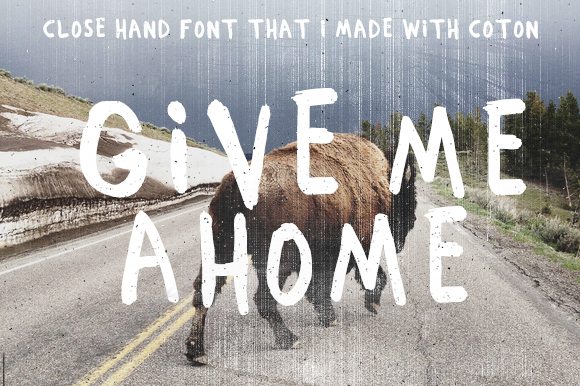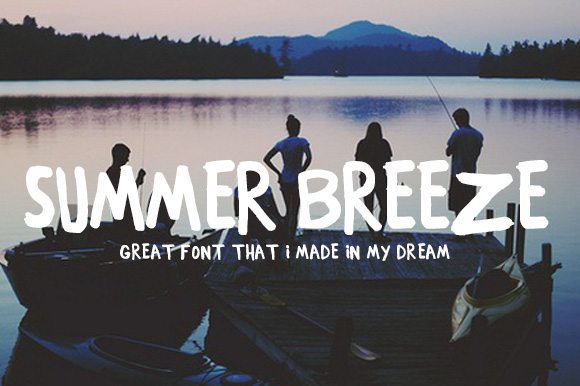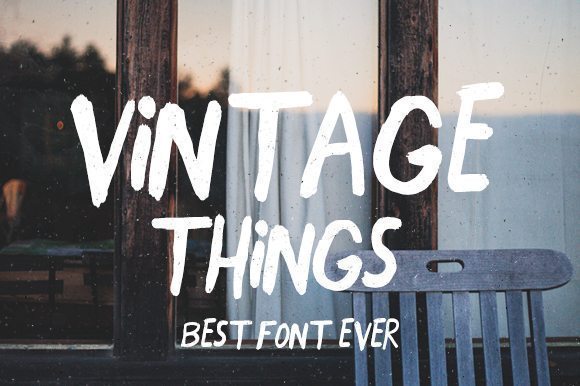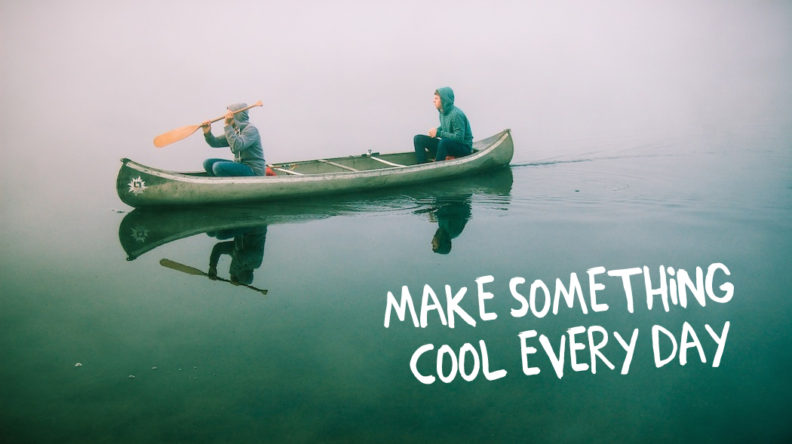
Close font awesome hand made font absolutely free for personal and commercial use! We thank Rachid Aitouaissi for providing us with this wonderful freebie. Check out more great fonts in Rachid’s Creative Market store.